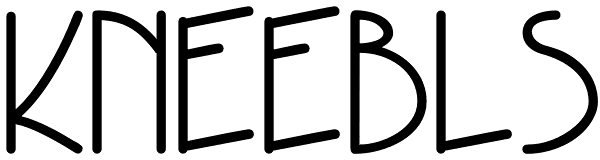
Kneebls
Kneebls is a modernistic alphabet that does not have a true lower case, but the letters on the lower-case keys are different from those on the upper-case keys.